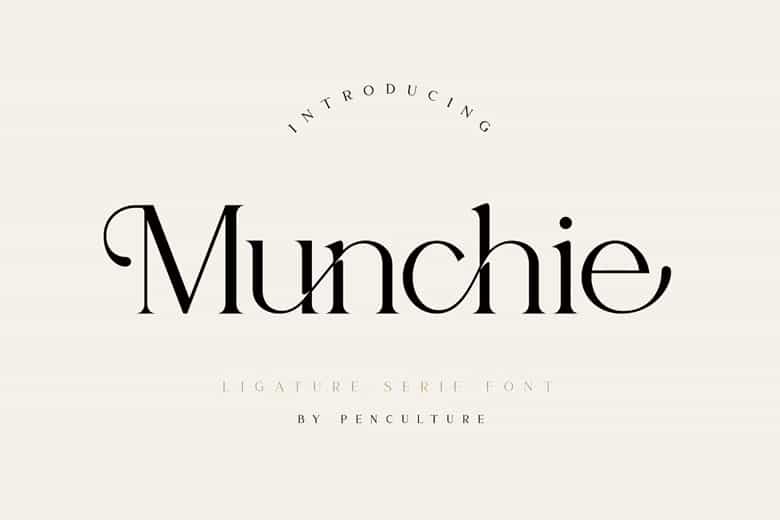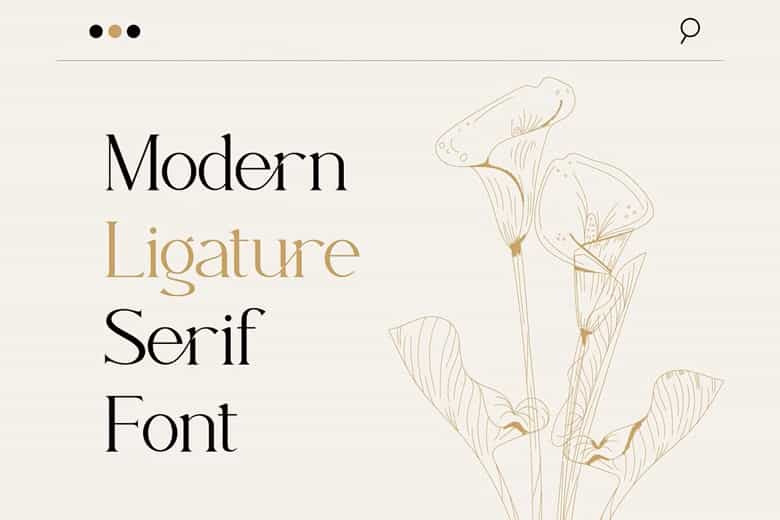
Munchie is an elegant serif typeface with quite a lot of awesome and unique ligatures. And this font is not only that, but it also consists of beautiful alternate very convenient and can be used for the numerous designs projects. This font can be applied used on projects such as branding, logo, poster, social media, web design among other designs.